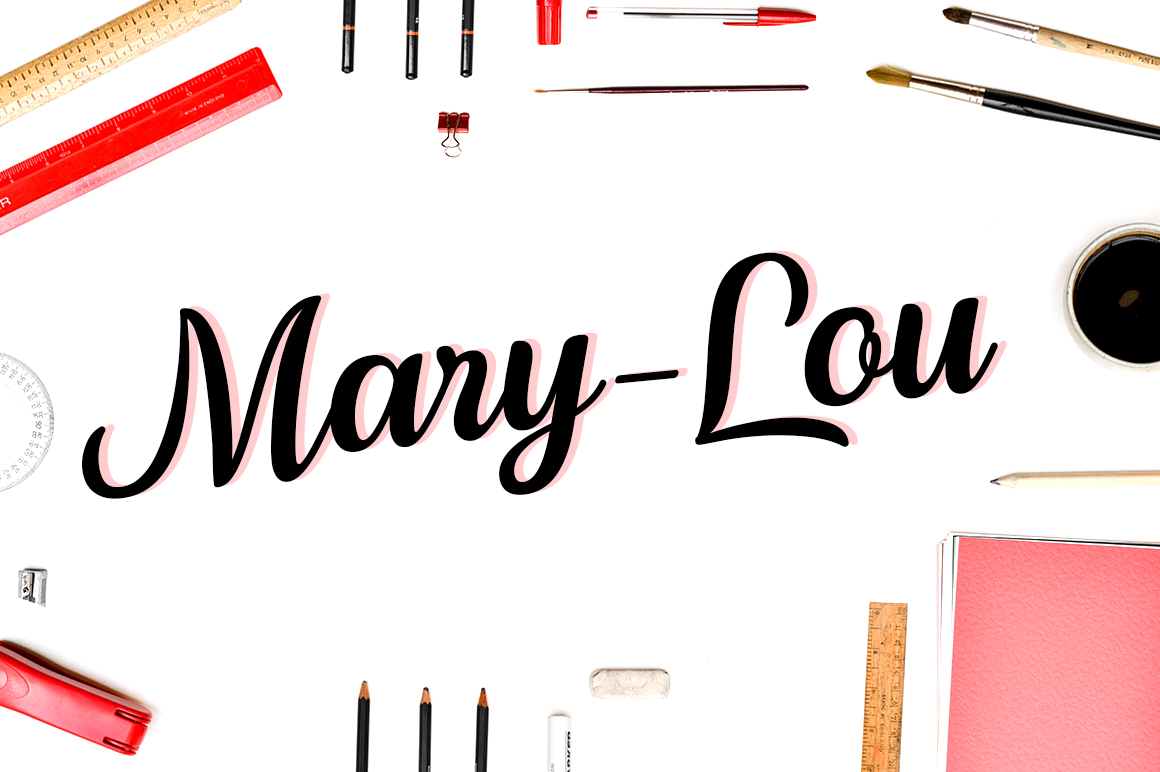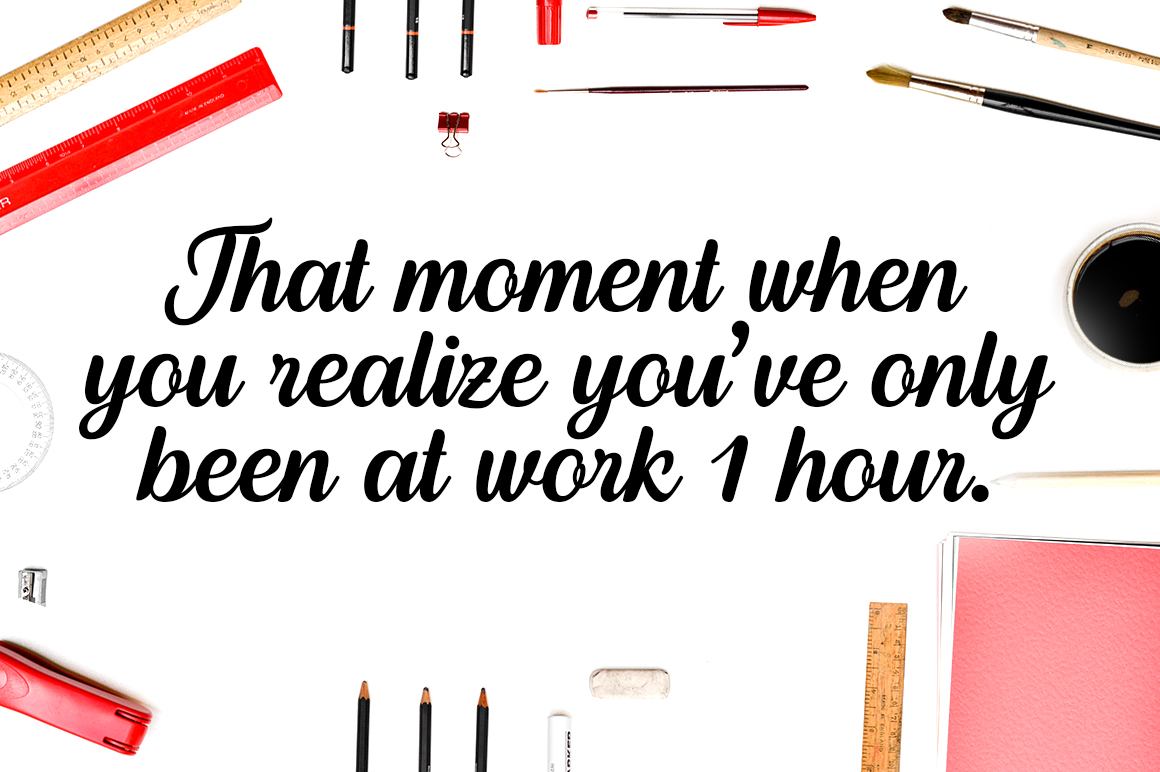
Mary-Lou Font
About Mary-Lou Font
Mary-Lou is a friendly, inviting font. This script font is ideal for a wide range of display uses, and can add some charm and class to your designs.